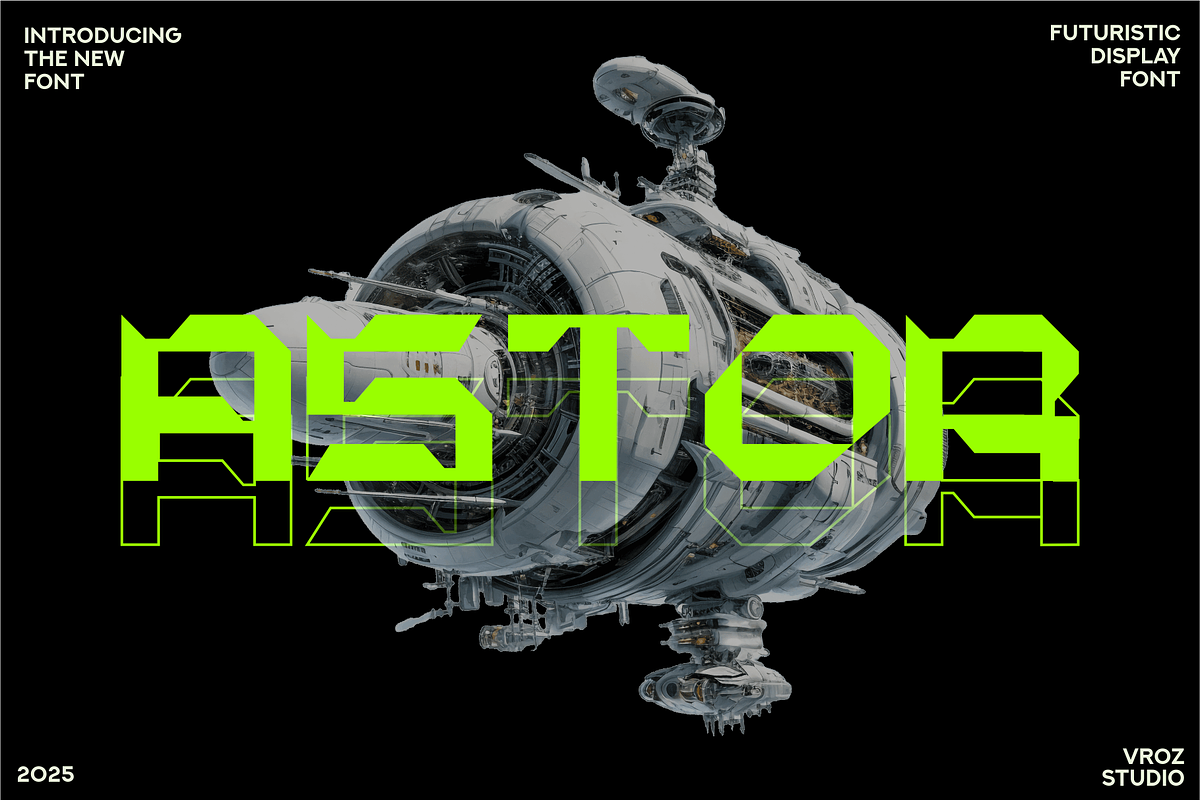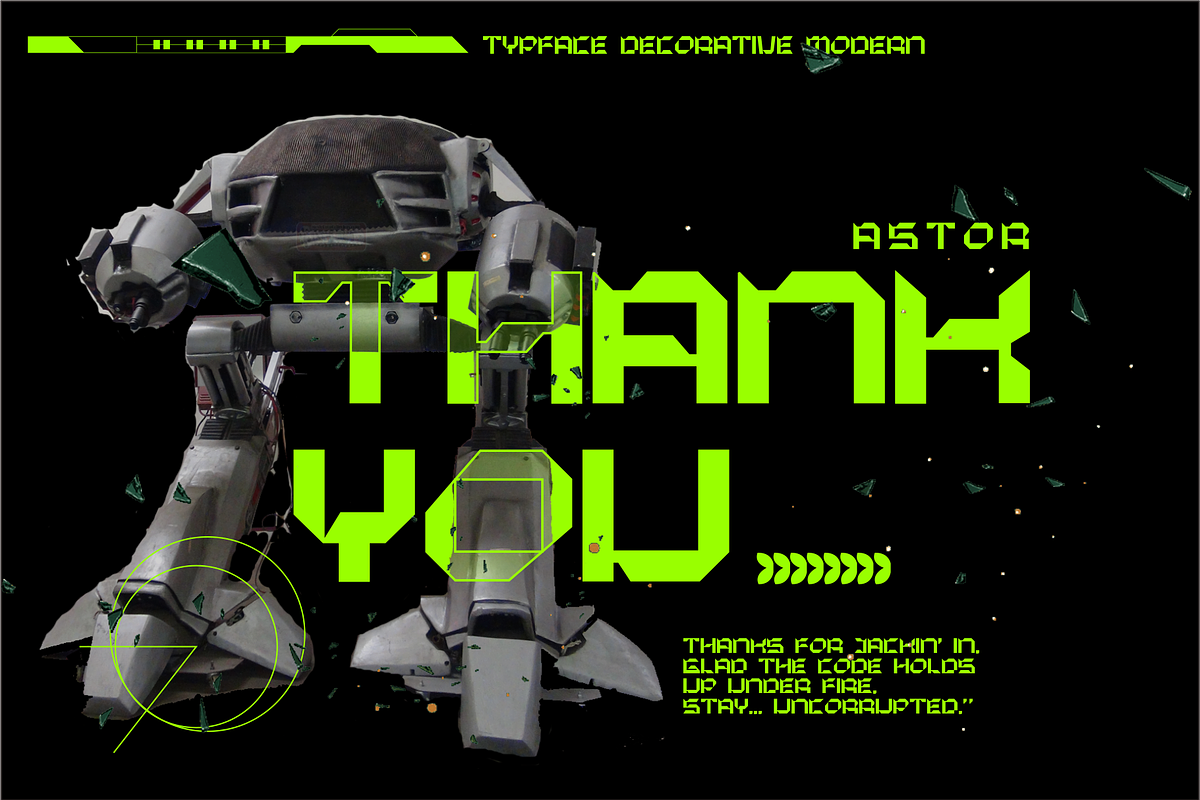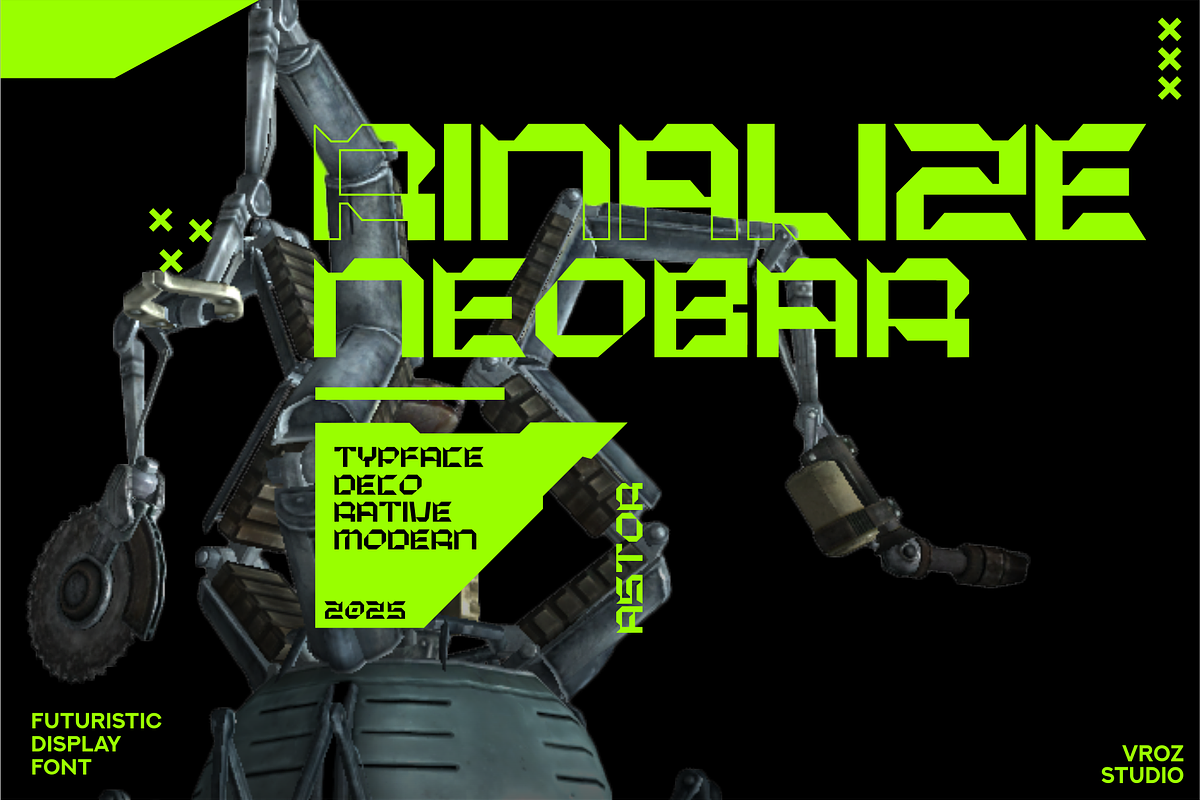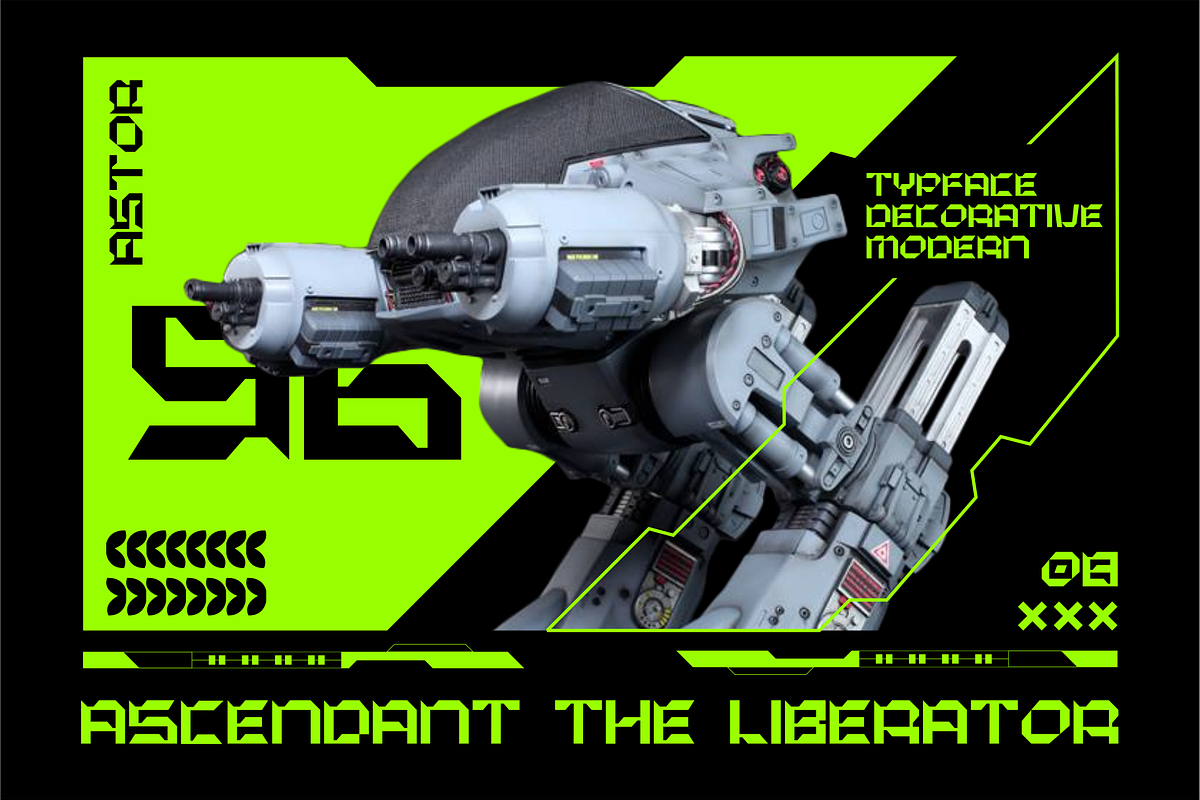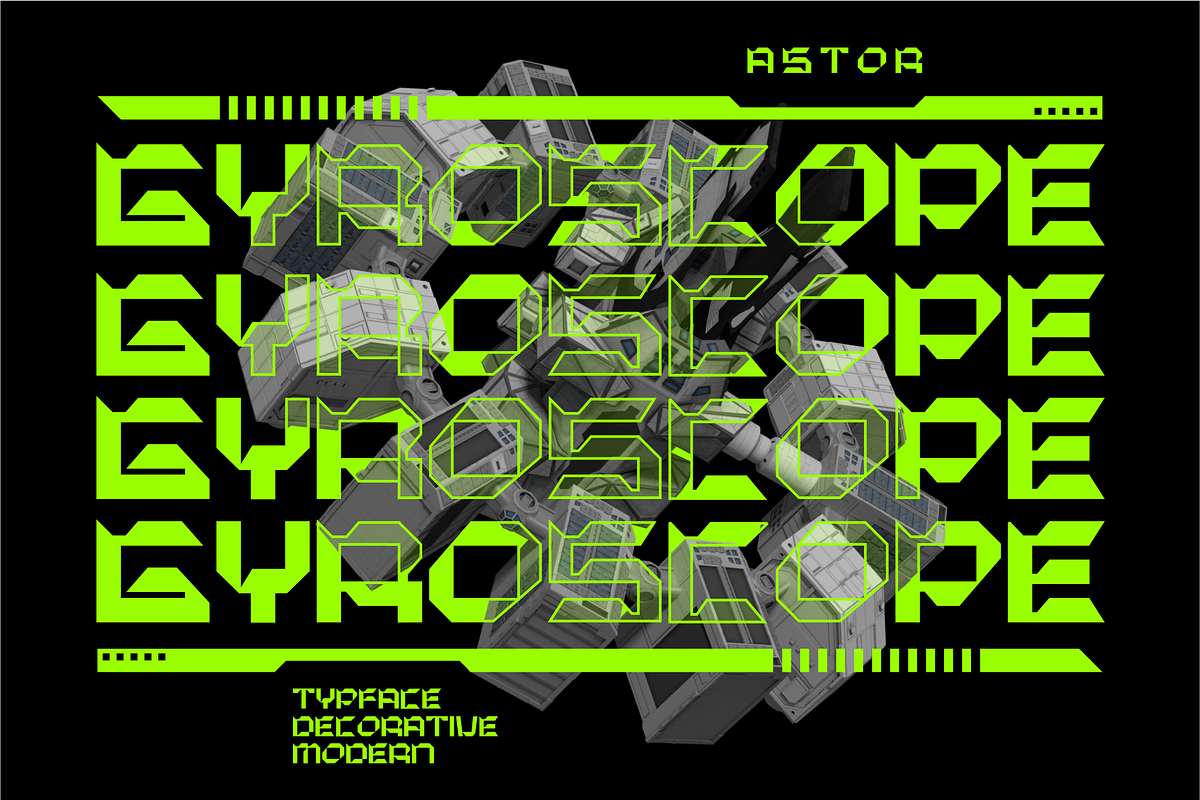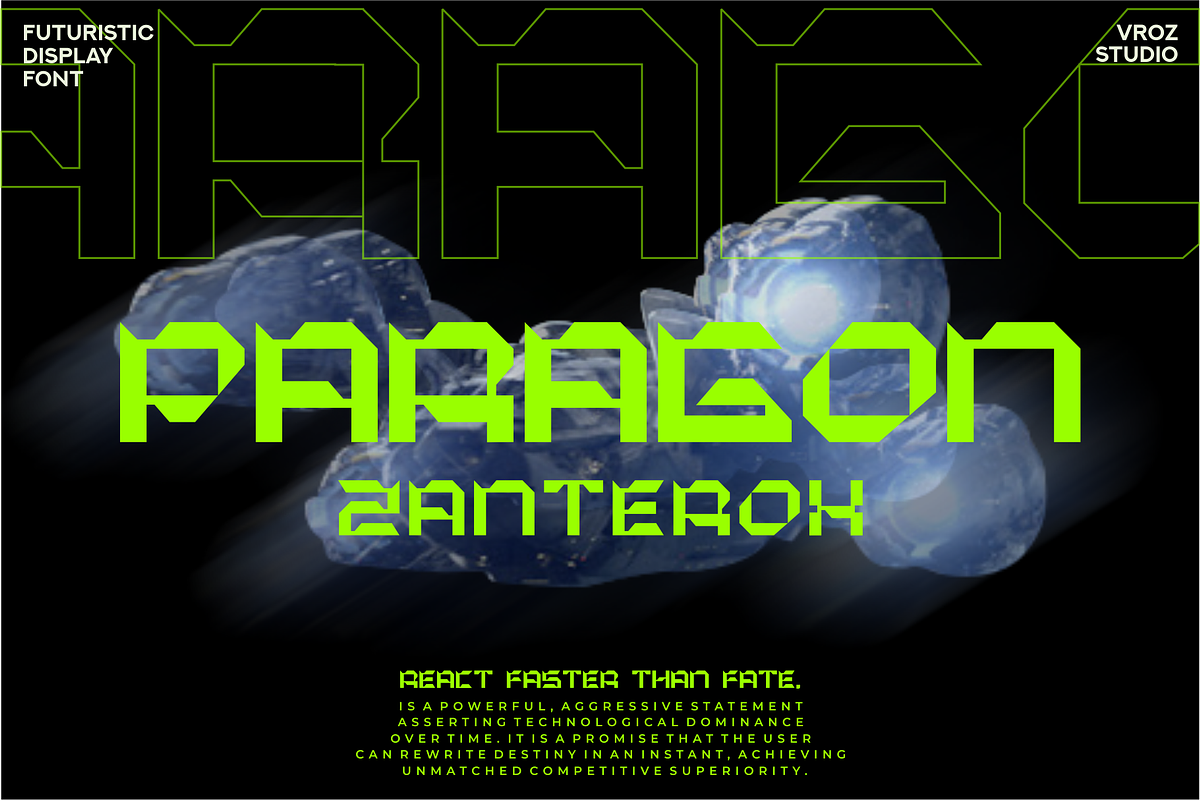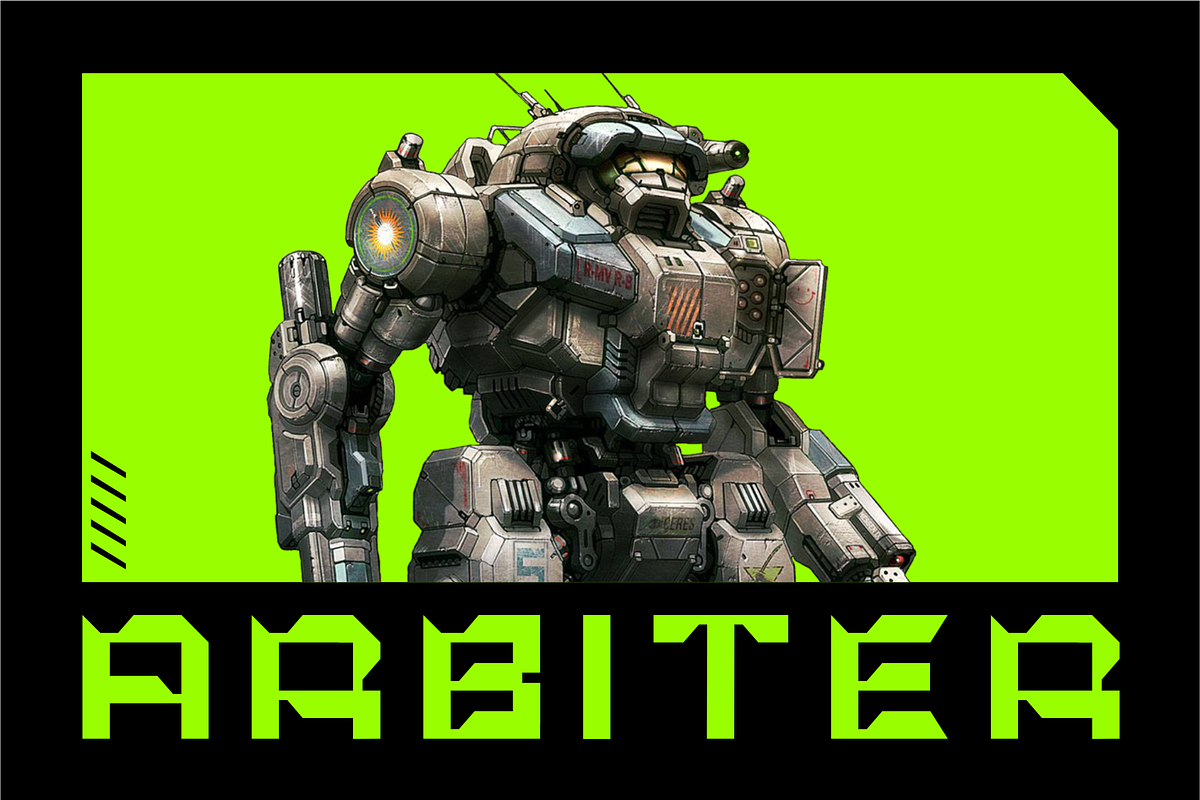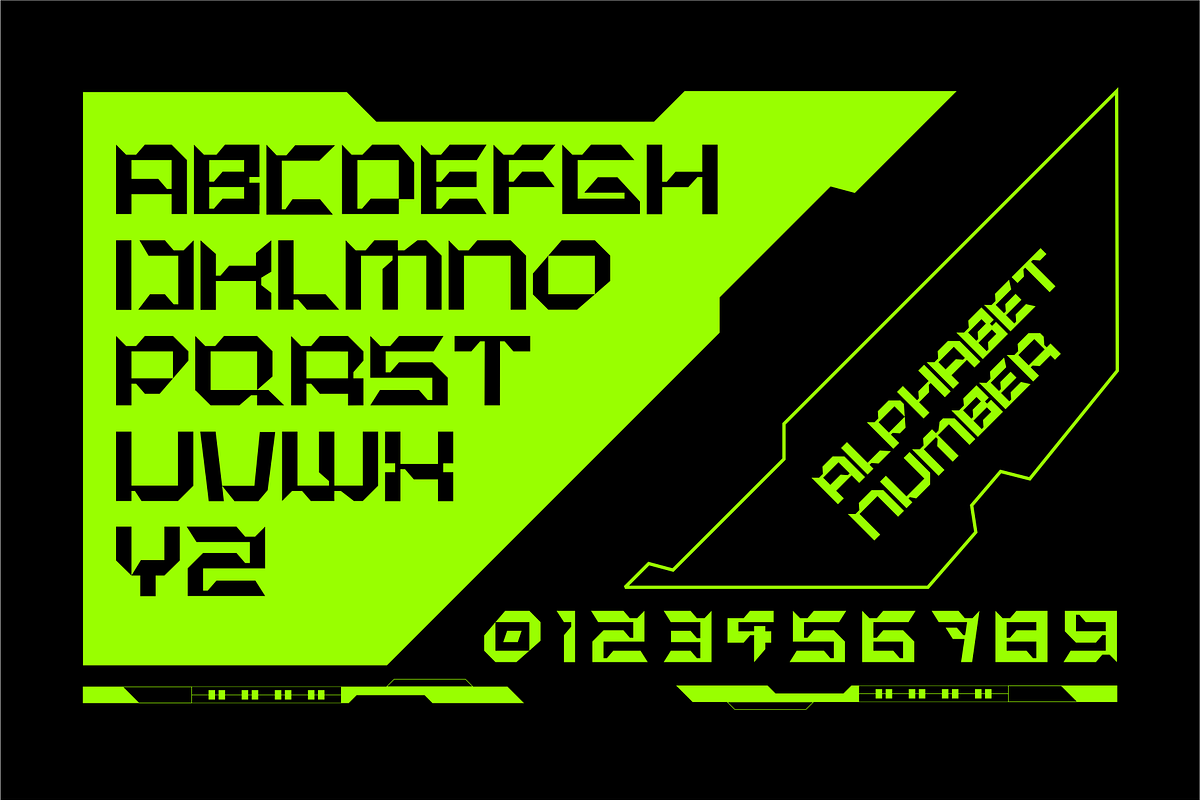
ASTOR - Futuristic Display Font
ASTOR is a bold experimental display font that embodies the essence of robotic precision and outer space mechanics. Inspired by advanced mecha systems and interstellar technology, ASTOR fuses futuristic sharpness with mechanical harmony. Each letterform exudes power, innovation, and the elegance of engineered design.
Perfect for headlines, billboards, magazines, websites, titles, posters, branding, thumbnails, t-shirt designs, streetwear concepts, and creative logos, ASTOR adds a distinctive futuristic flair to any project. With this striking display font, your designs will stand out and make a bold statement.